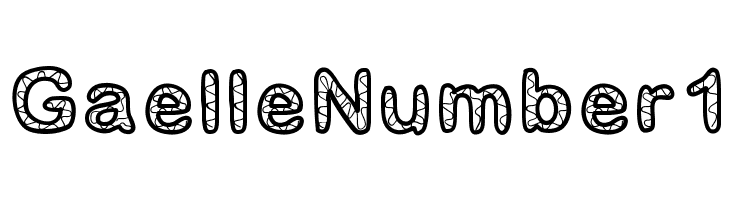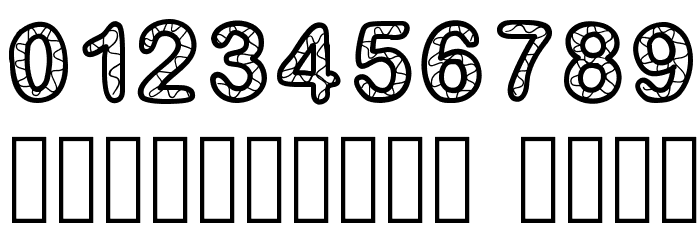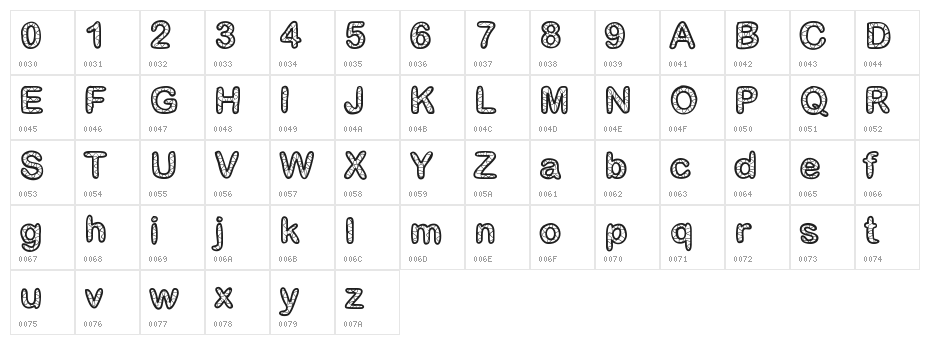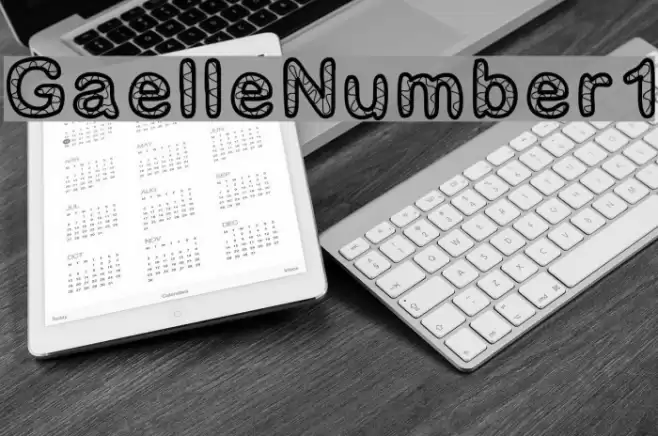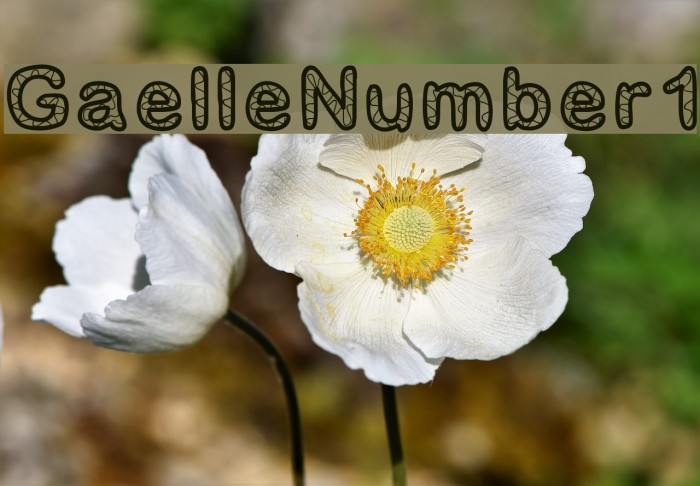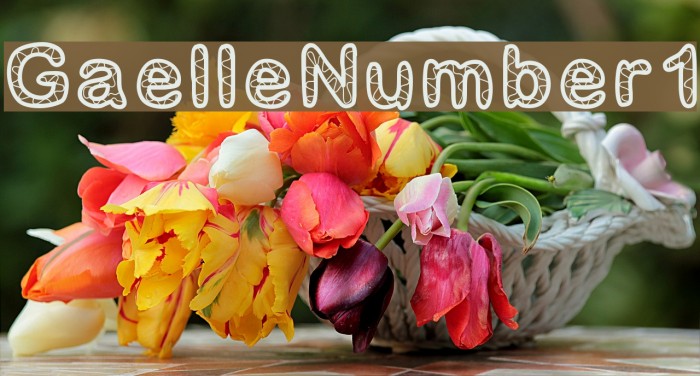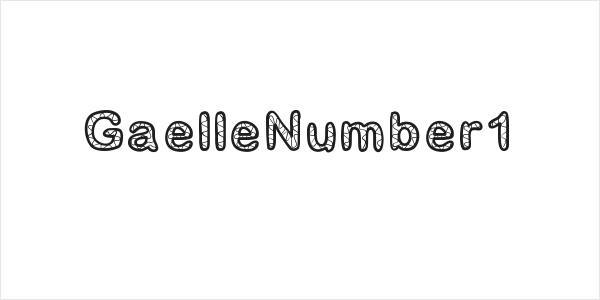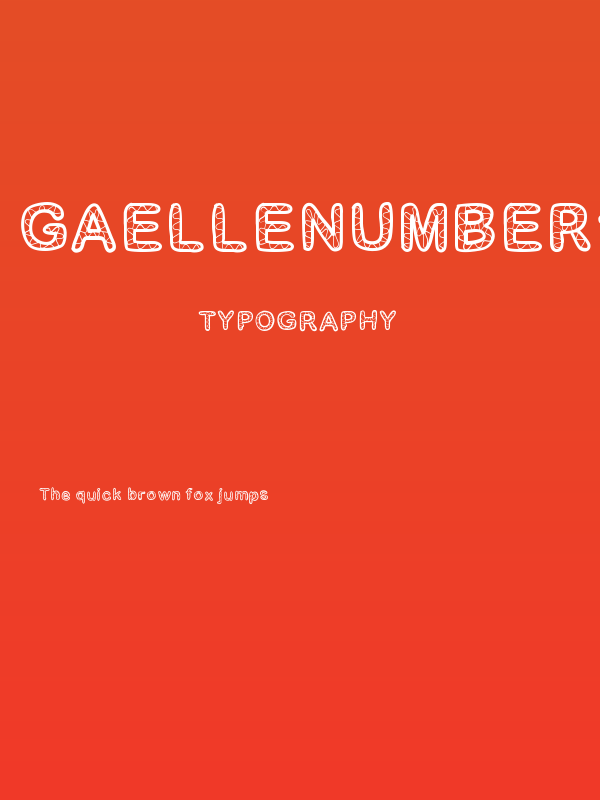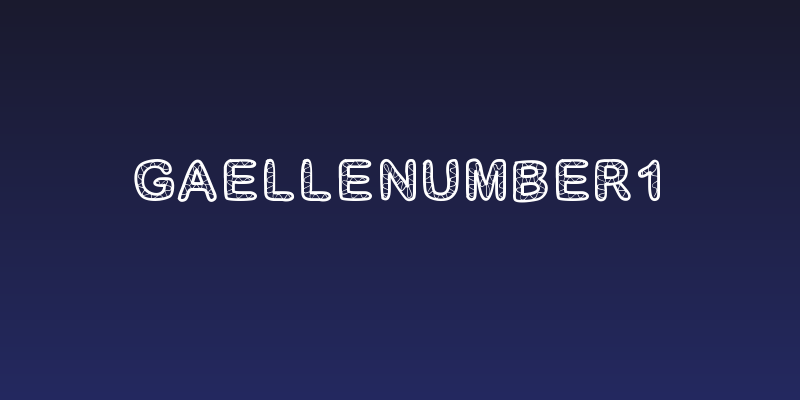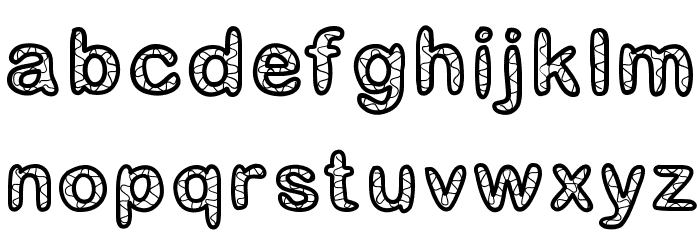
GaelleNumber1 Font
GaelleNumber1 Description
This font features a playful and decorative style with a unique pattern inside each character. The letters are bold and rounded, giving them a friendly and approachable appearance. The intricate design within each letter adds a layer of complexity and visual interest, making it suitable for creative and artistic projects. The font maintains a consistent thickness throughout, ensuring readability while still offering a distinct and eye-catching look. Its whimsical nature makes it ideal for use in children's books, playful branding, or any project that requires a touch of fun and creativity.